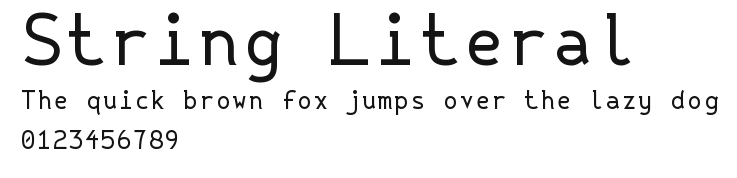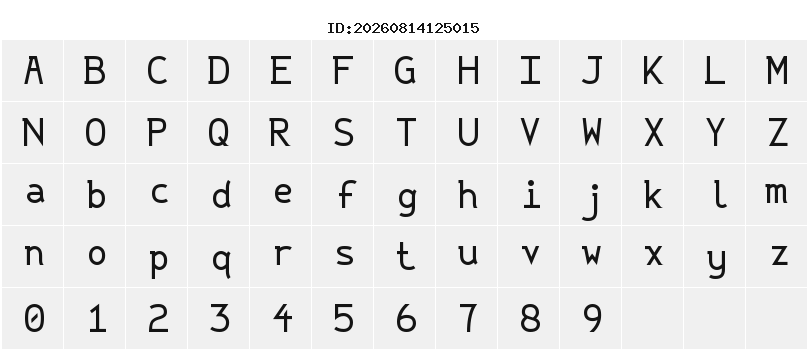
• Font Name: String Literal
About String Literal.ttf
String Literal.ttf is a modern, elegant sans-serif font designed for ultimate readability and visual harmony. Perfect for branding, headlines, web design, and print materials.